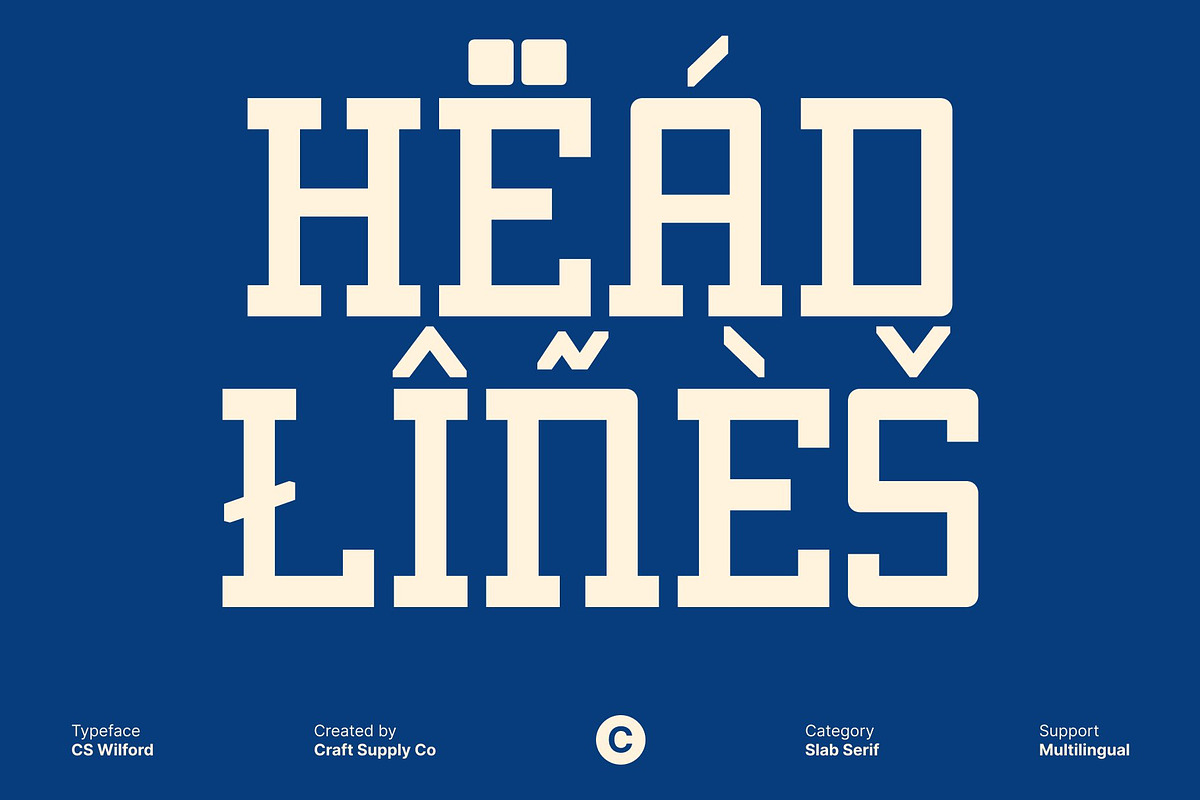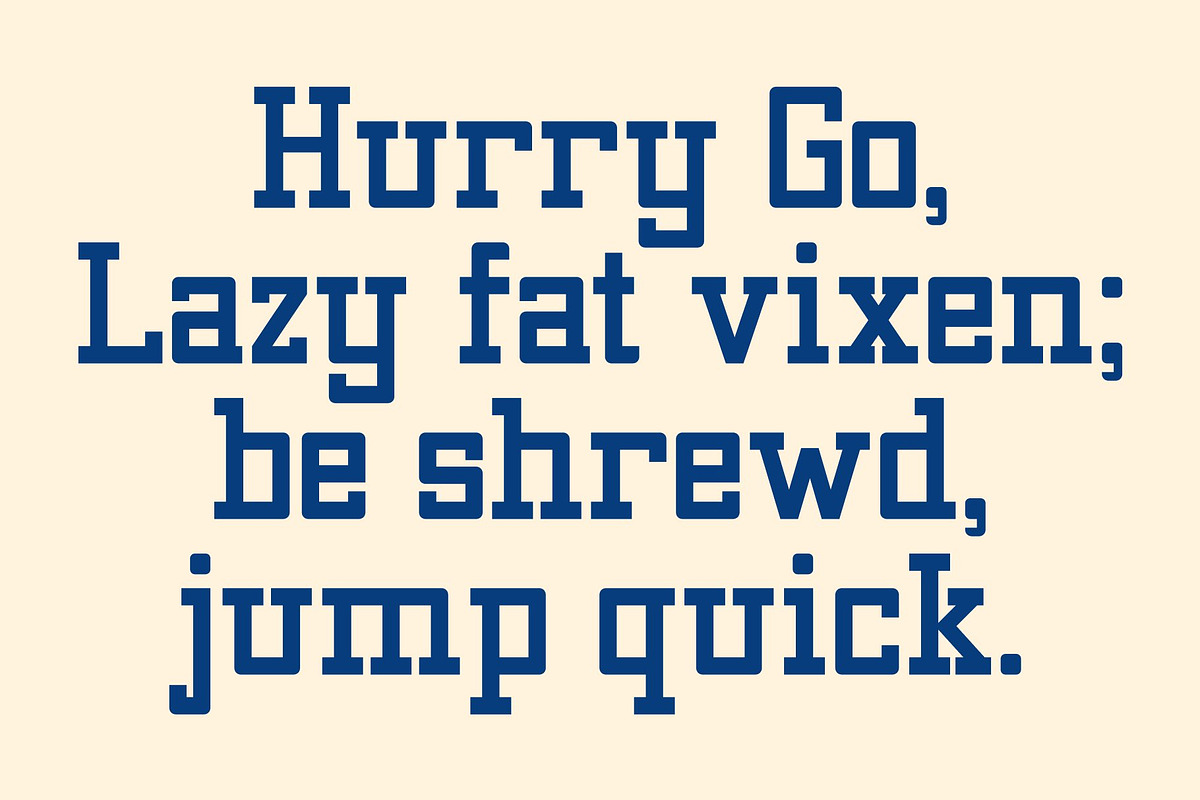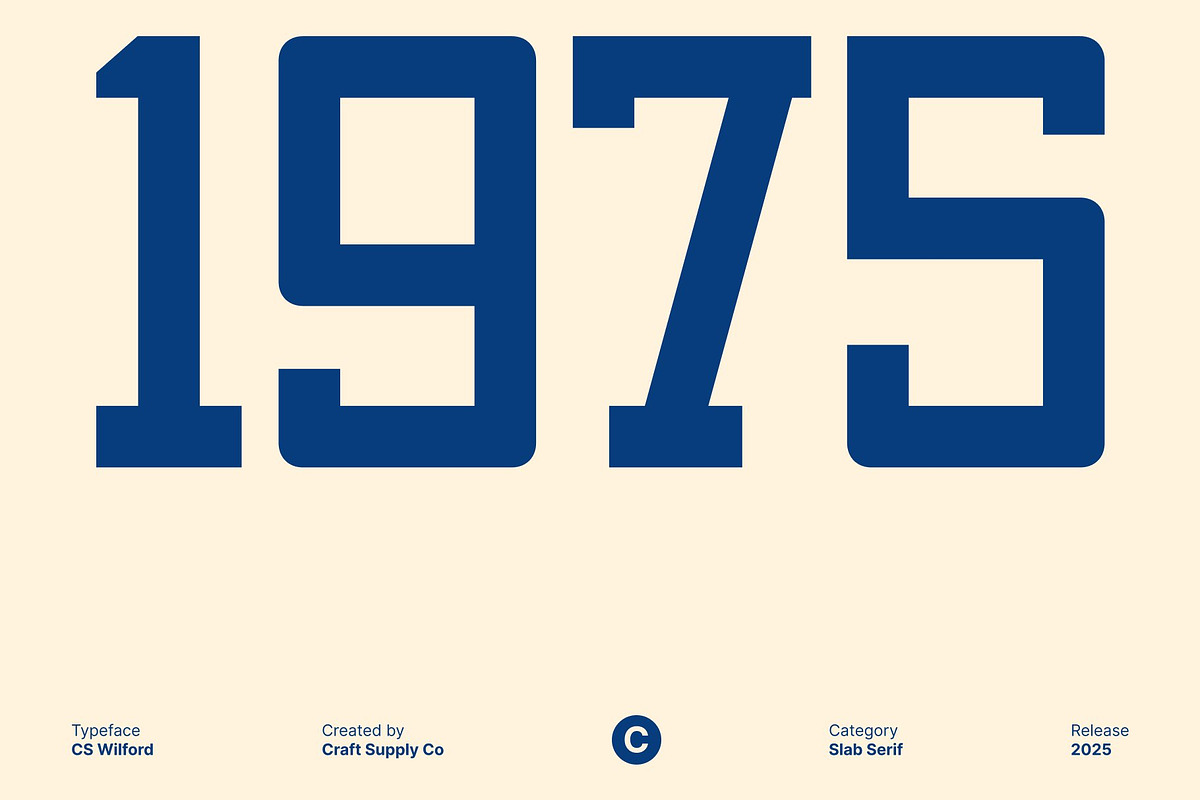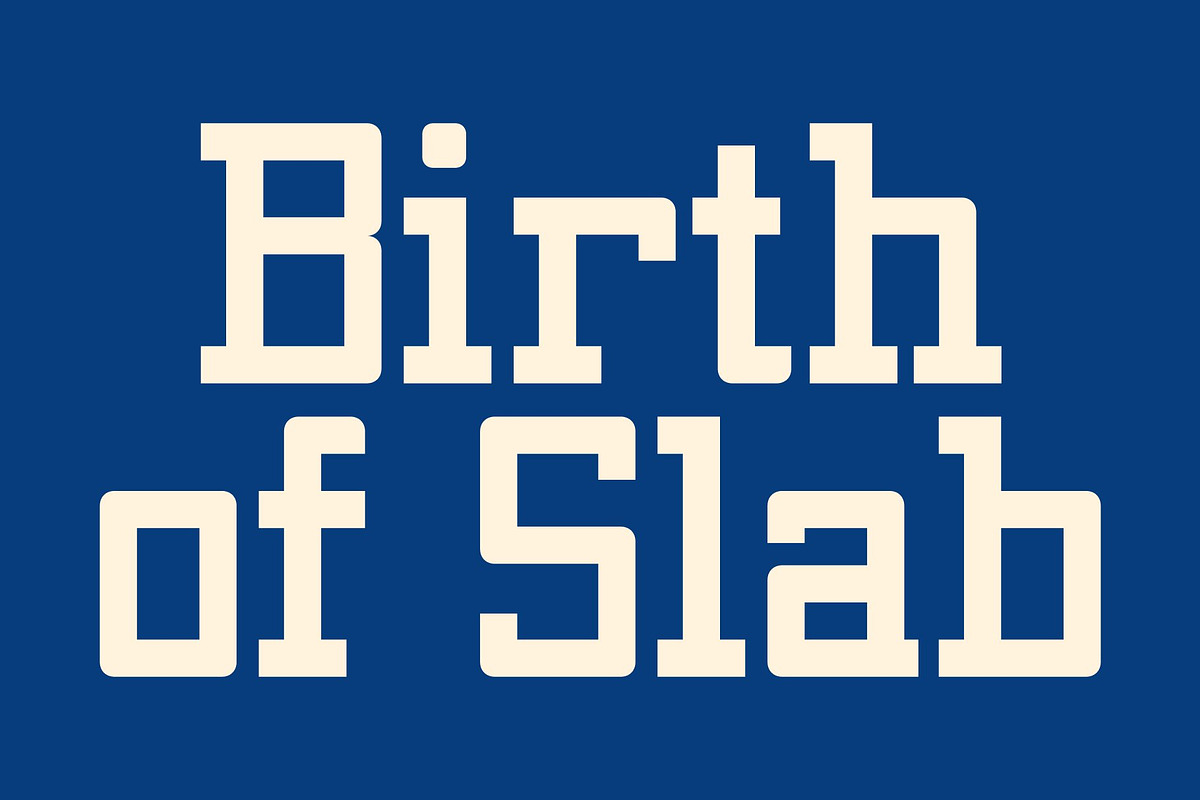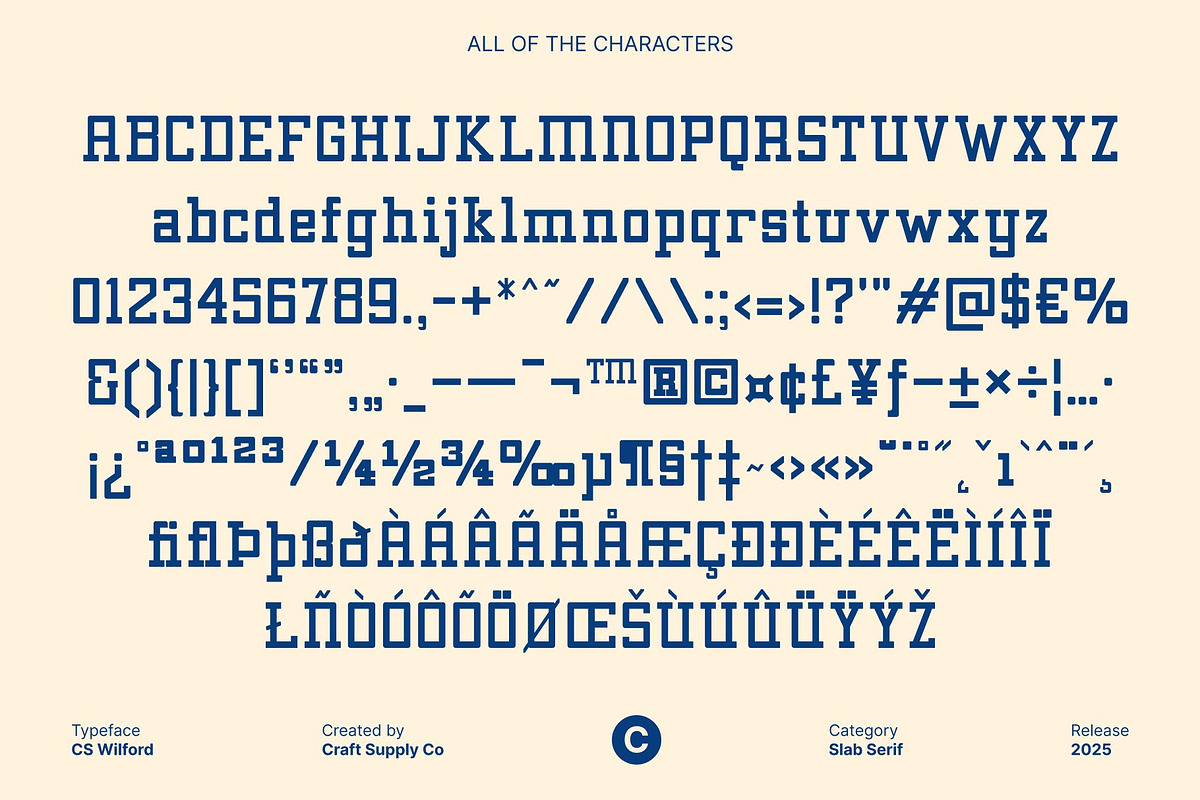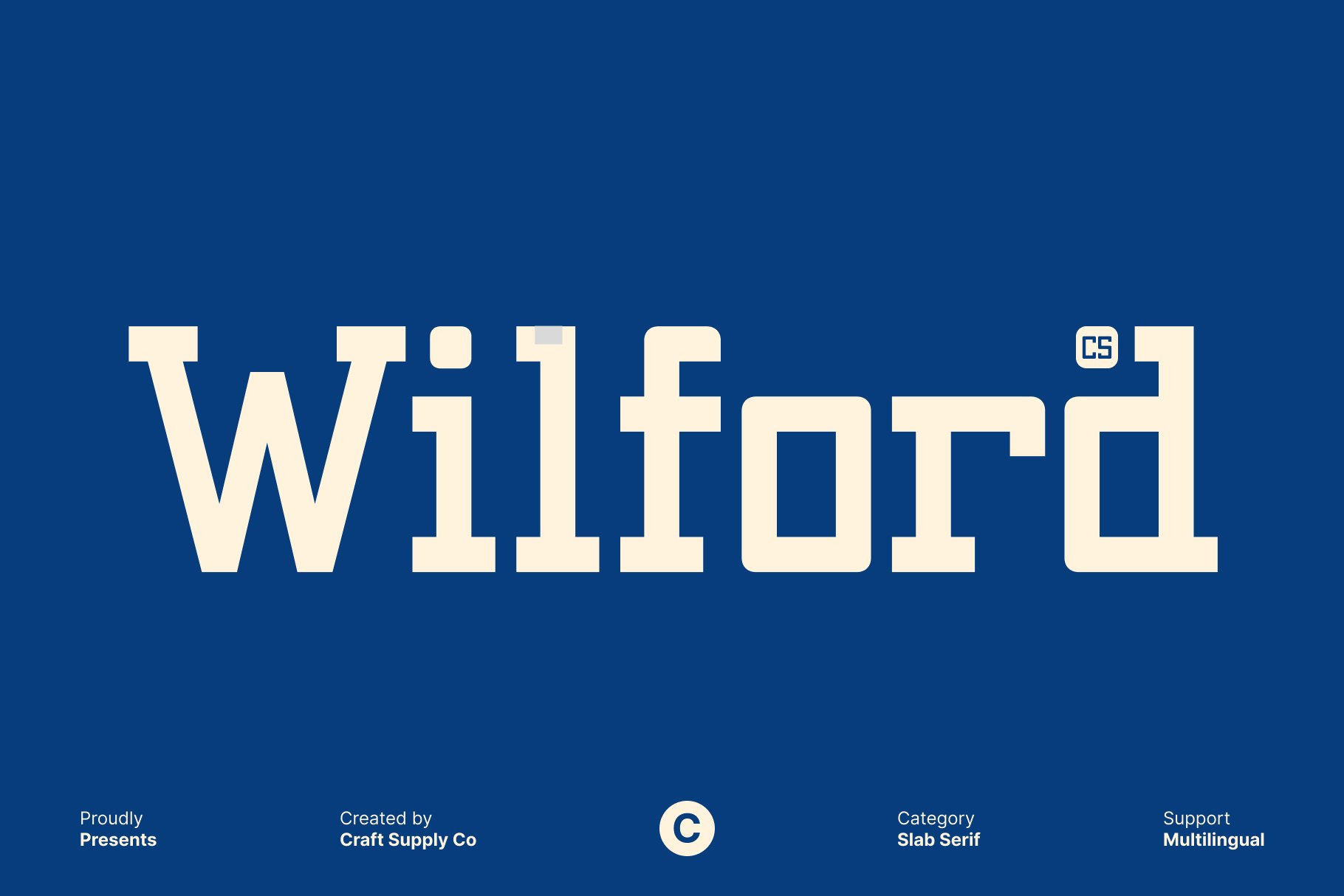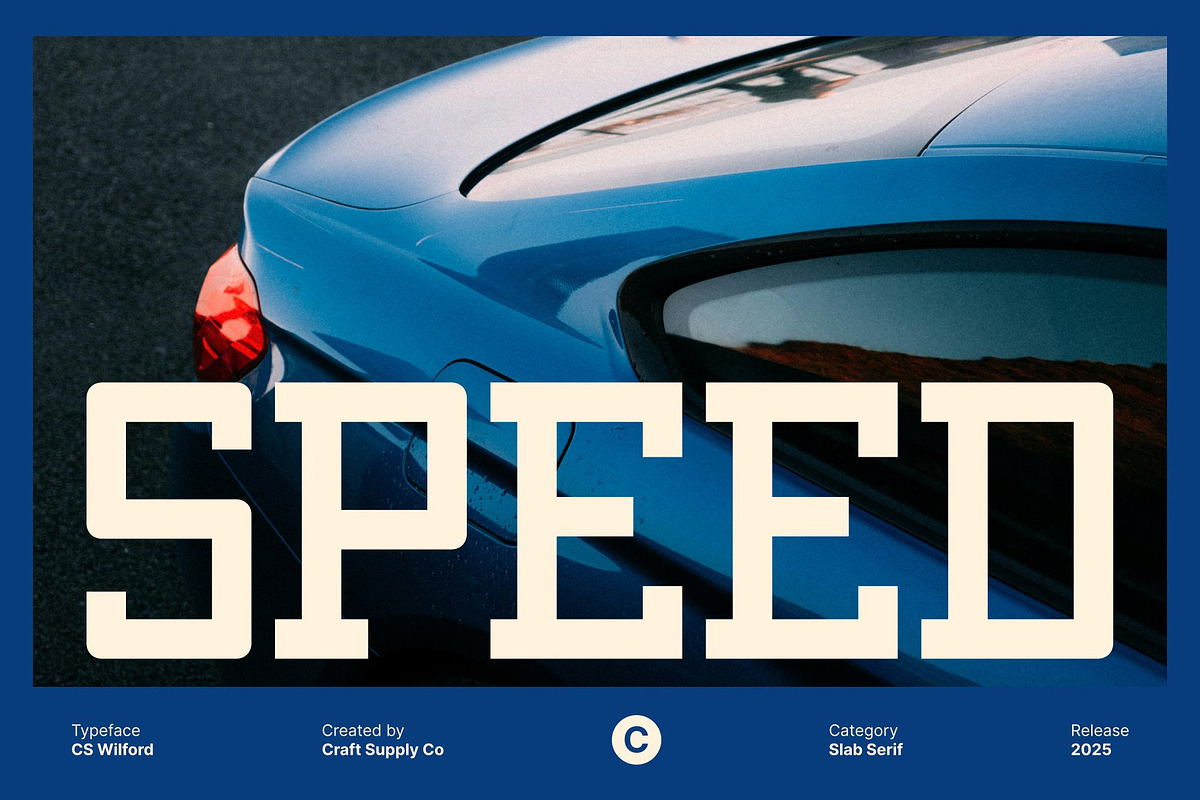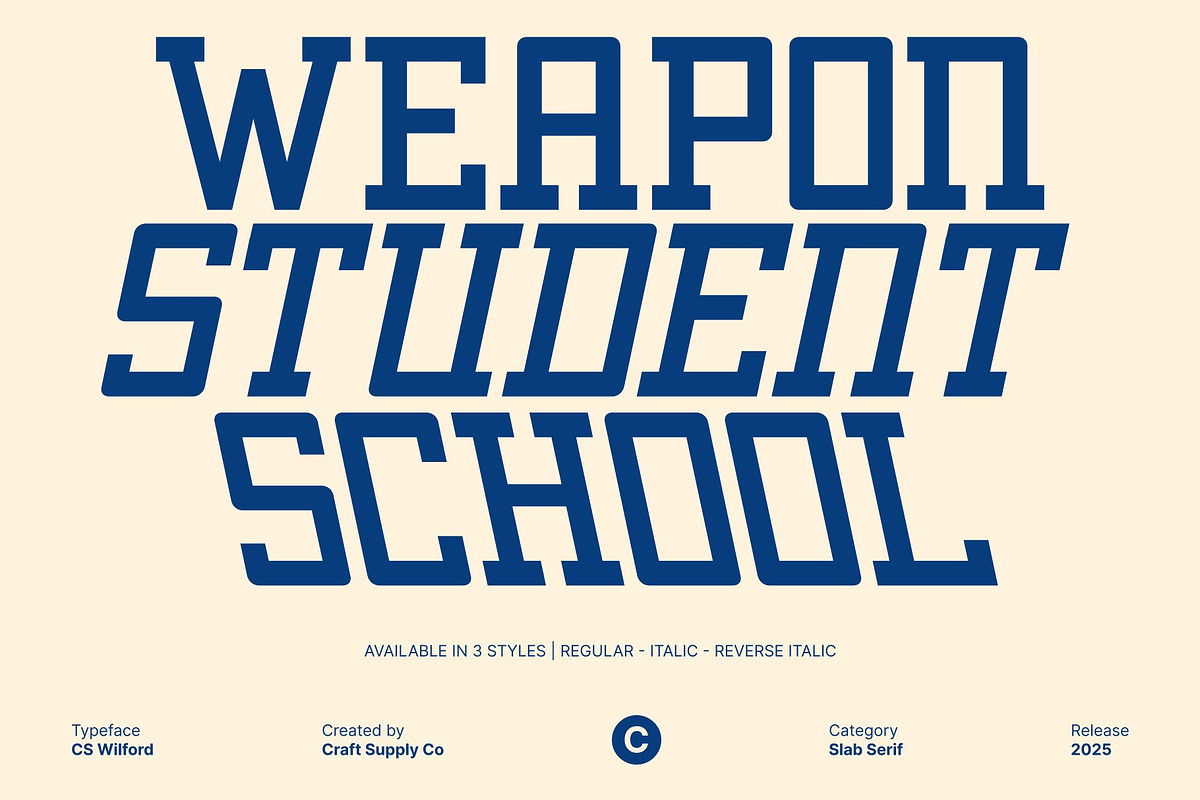
CS Wilford – Slab Serif Font
CS Wilford – Modern Slab Serif with Square Strength
Square-Edged Design for a Striking Visual Identity This is a slab serif font built with square shapes that instantly command attention. Its structured, geometric form gives every letter a powerful presence, making it ideal for designers seeking a modern and assertive typographic voice. The sharp edges and precise construction create a clean, impactful appearance that elevates any contemporary layout.
Robust Serifs for Stability and Character With its sturdy slab serifs, this font delivers exceptional strength and clarity. The robust serifs enhance the font’s visual weight while maintaining smooth readability, allowing headlines and titles to stand out with confidence. These carefully designed serifs provide both aesthetic appeal and structural stability, creating a typeface that feels grounded and dependable.
Sporty Energy with Modern Versatility The unique square details give this font a sporty, energetic feel suitable for dynamic branding and active design concepts. Its character evokes movement, precision, and modern competitiveness perfect for sports branding, apparel graphics, performance themed posters, or contemporary marketing materials.
Reliable Readability Across Various Applications Despite its strong visual personality, this font remains highly legible in both large and medium sizes. The well-defined shapes, balanced proportions, and geometric consistency ensure clarity across print and digital mediums. Whether used for headlines, editorial titles, or promotional visuals, this font offers a reliable and polished typographic solution that blends strength with style.